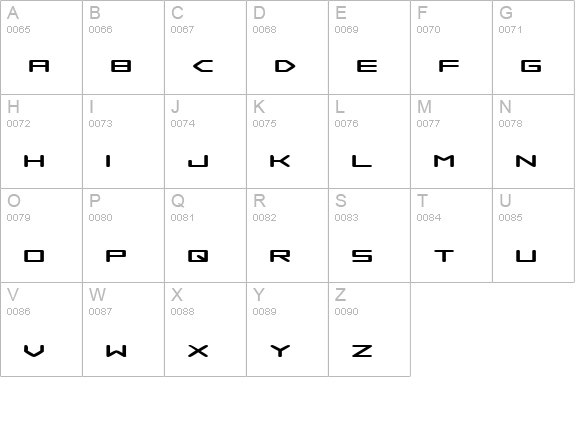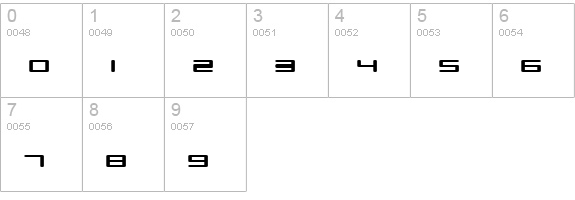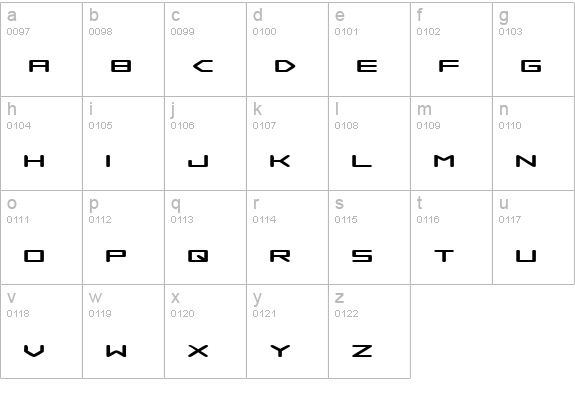
Samba is Dead Font Details
Introducing Samba is Dead font, a captivating and versatile typeface that will take your designs to new heights. This font exudes a unique blend of modernity and elegance, making it suitable for a wide range of creative projects. Samba is Dead font boasts a bold and dynamic appearance, with its carefully crafted letterforms and intricate details. Its clean lines and smooth curves create a visually pleasing rhythm, ensuring legibility and readability in any size or format. This font is perfect for branding, logo design, headlines, posters, packaging, and much more. Whether you're working on a minimalistic design or a vibrant and eye-catching composition, Samba is Dead font will effortlessly enhance your creative vision. Not only does this font offer exceptional aesthetics, but it also comes with the added bonus of being free. Yes, you read that right! Samba is Dead font is freely available to download at FontsMarket.com. This means that you can bring your designs to life without having to worry about any additional costs. So why wait? Embrace the power of Samba is Dead font and elevate your design projects to the next level. Download it today from FontsMarket.com and discover the endless possibilities that await you.